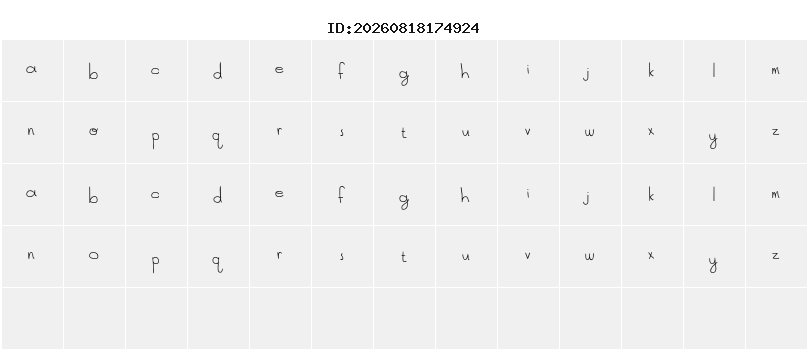
• Font Name: Sky Metropolis
• Designer: =^_^=
• Manufacturer: Skyhaven
Sky Metropolis.otf is a modern, elegant sans-serif font designed for ultimate readability and visual harmony. Perfect for branding, headlines, web design, and print materials.